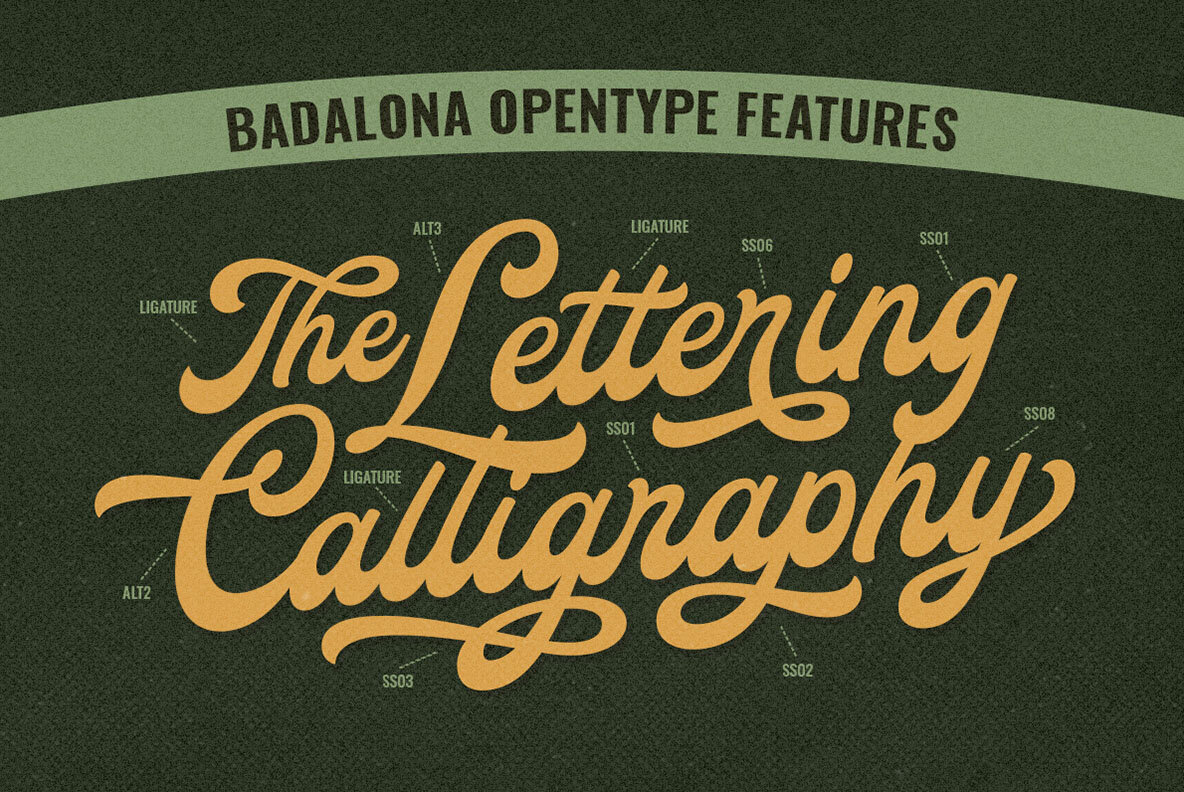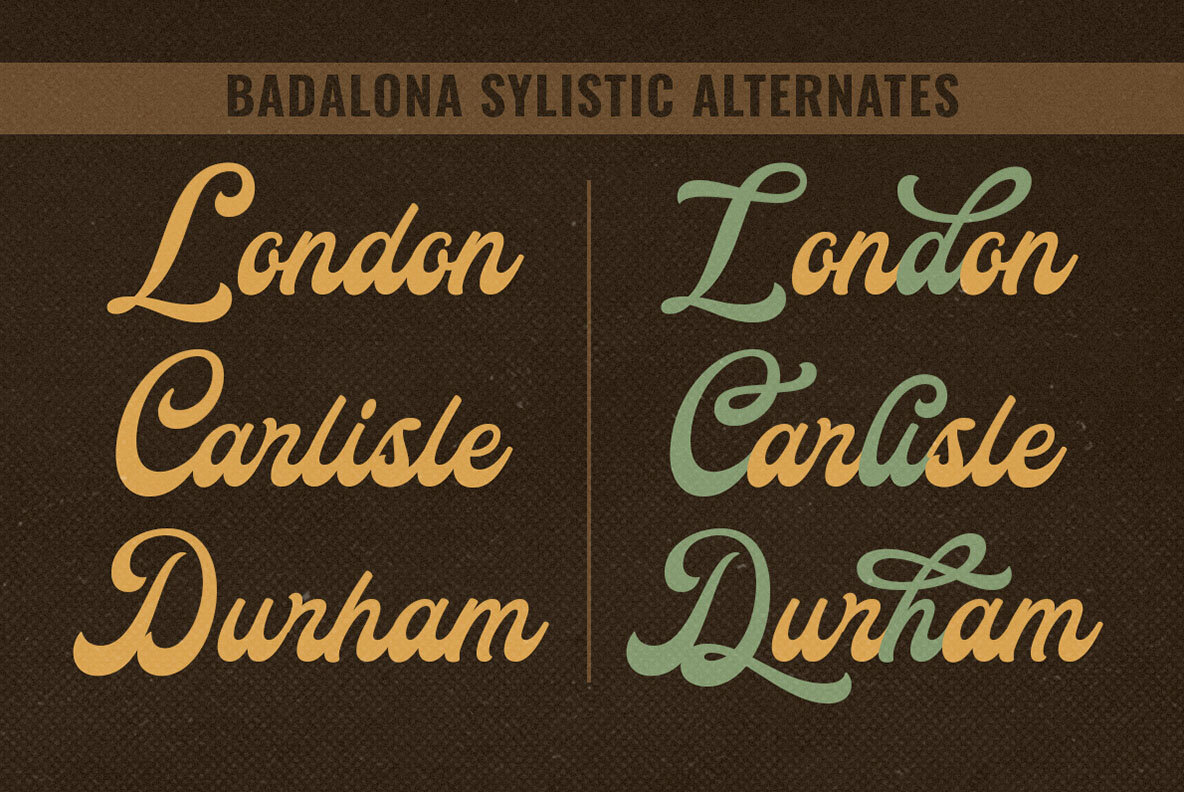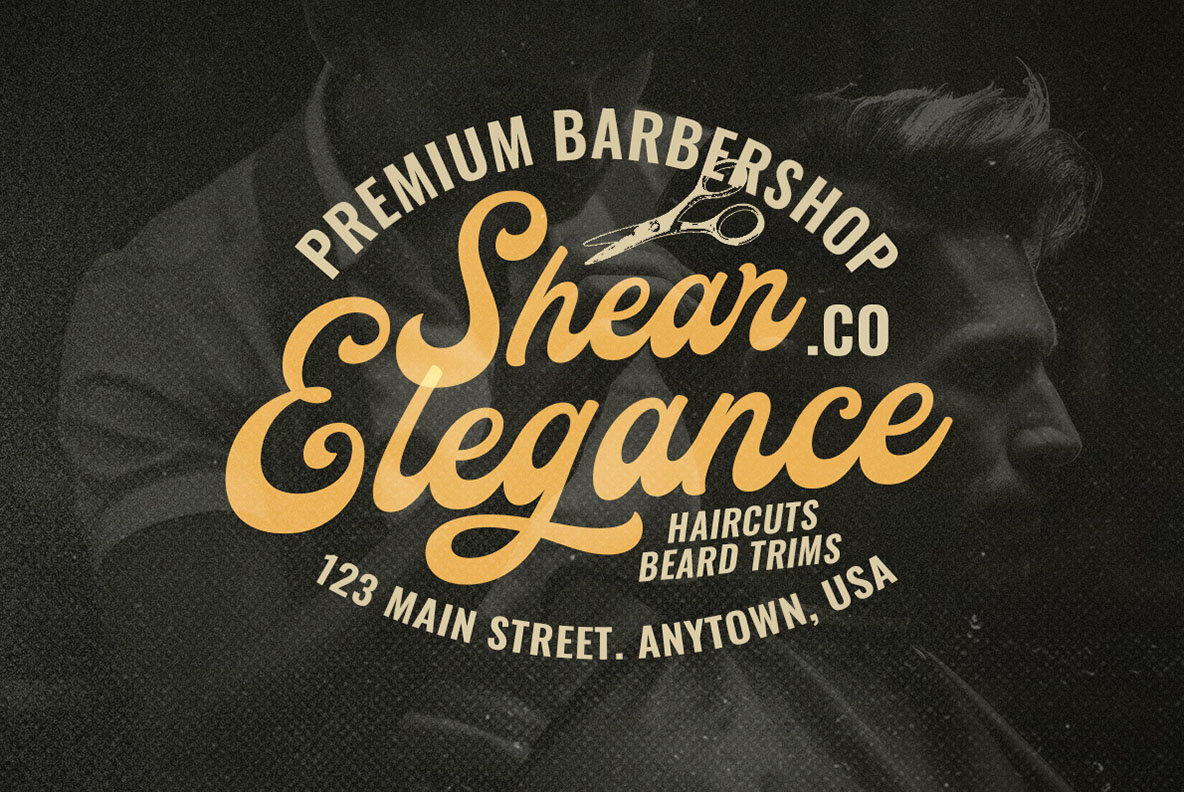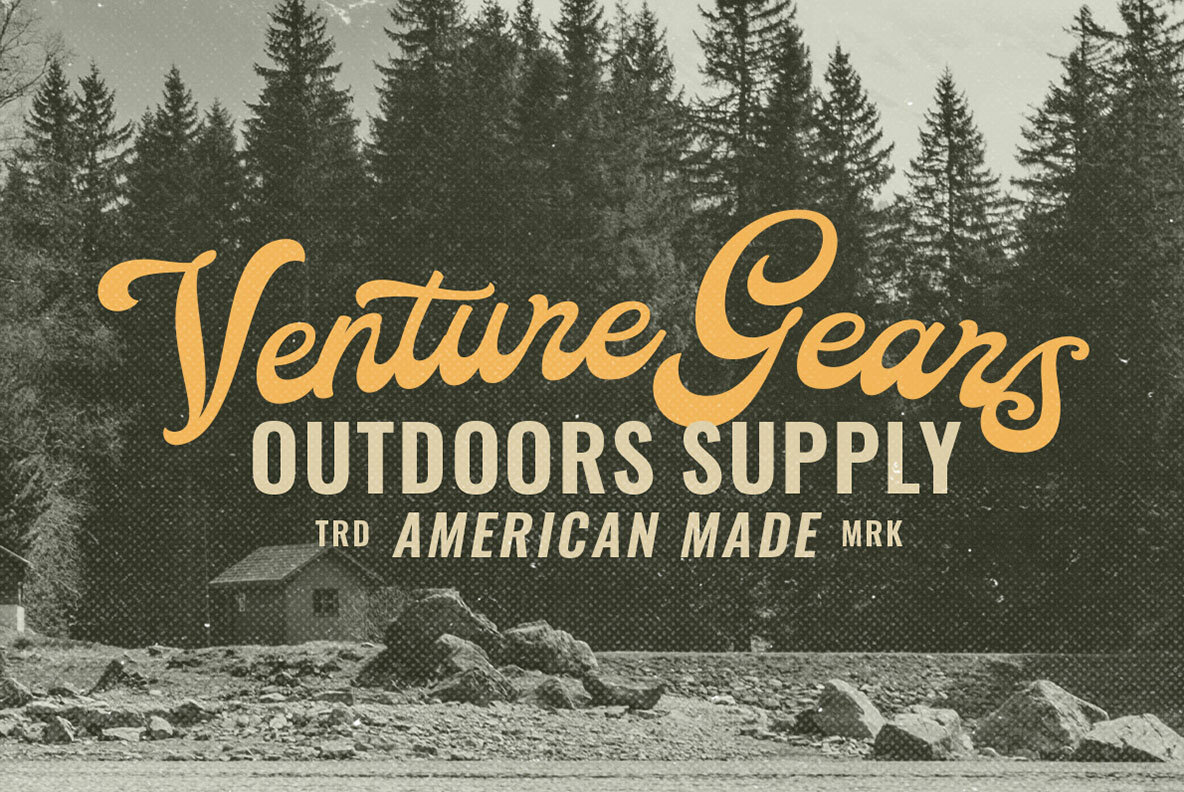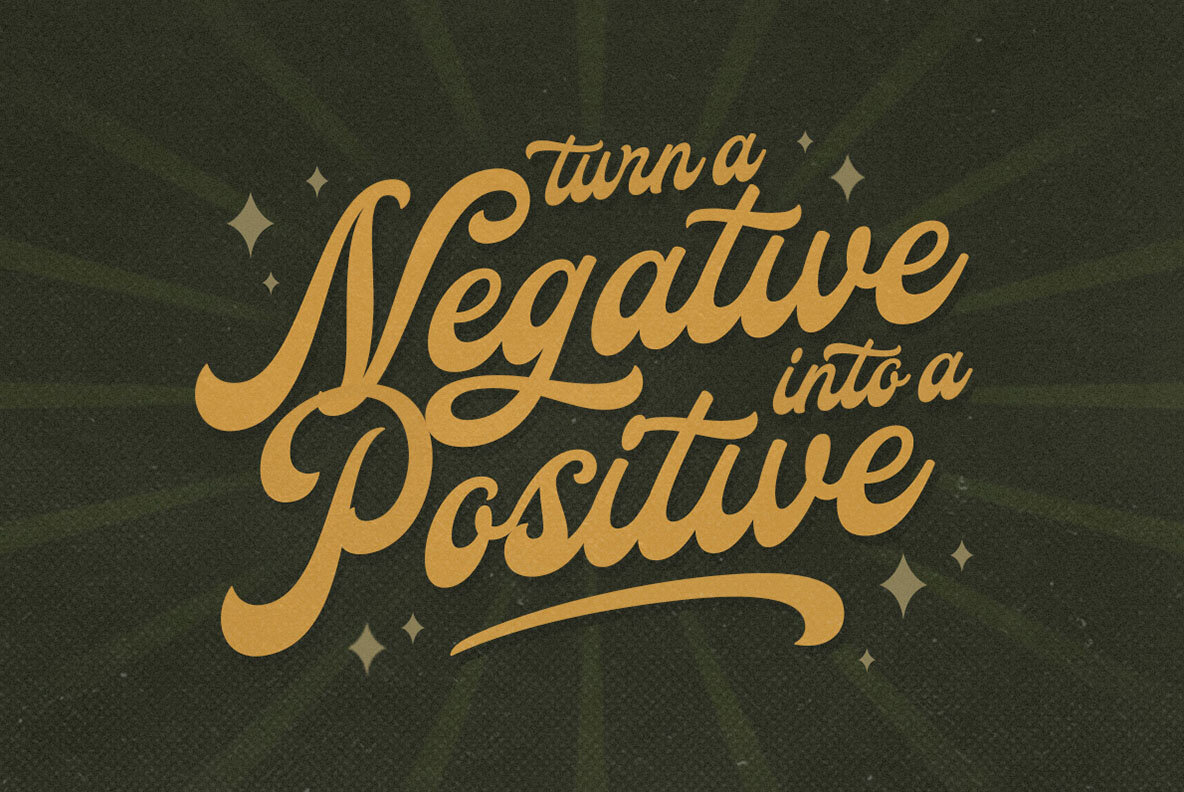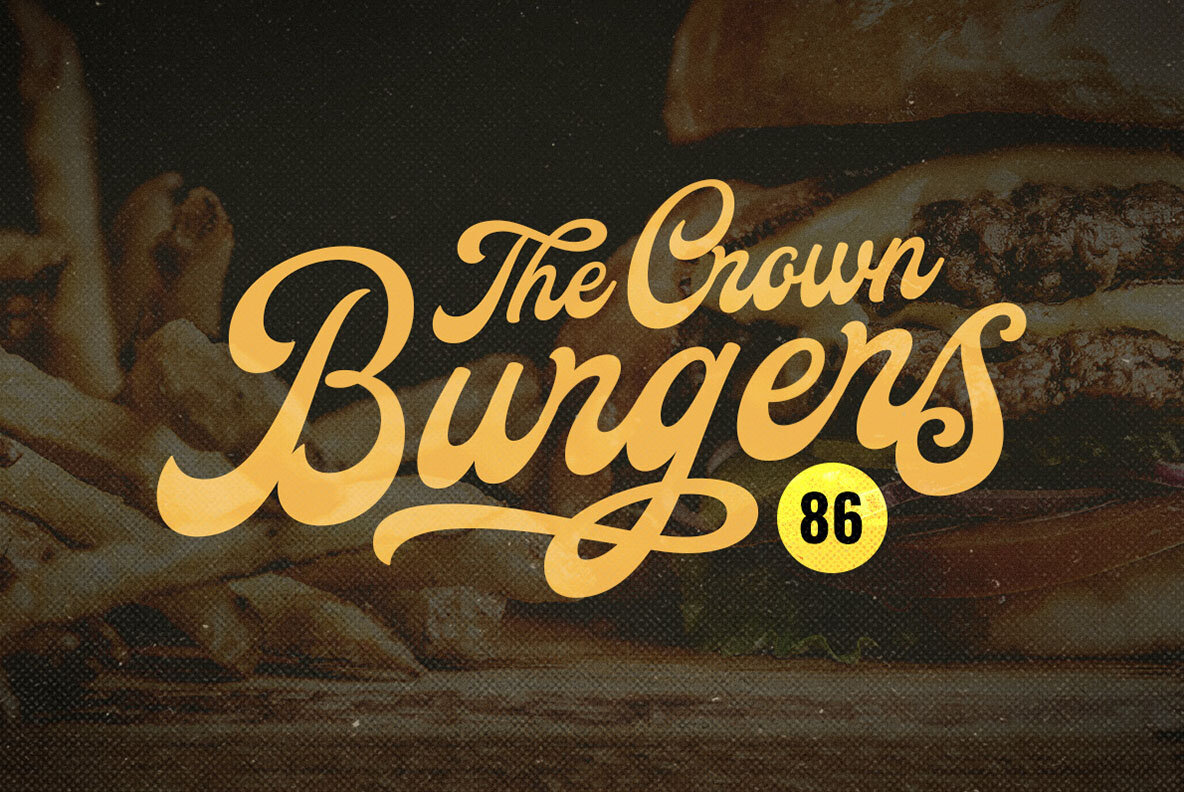
Badalona Font
Badalona Regular
This typeface is a script font with a touch of classic cursive handwriting and calligraphic tendencies. It features flowing, variable stroke weights and elegant swashes that suggest a personal and artistic touch. Ideal for formal invitations, branding, and advertising, this font carries a sense of sophistication and a timeless quality that can enhance the visual appeal of any project focused on elegance and tradition.